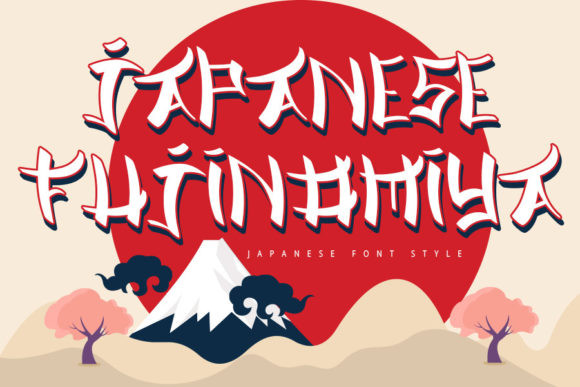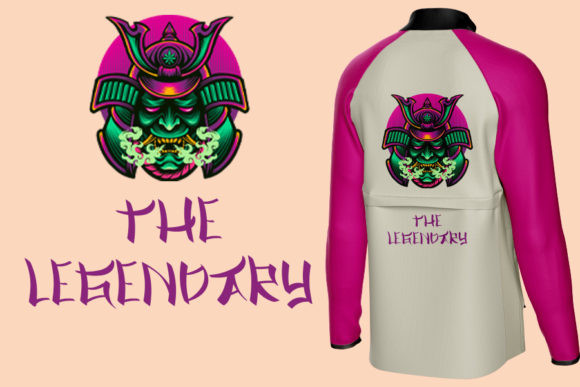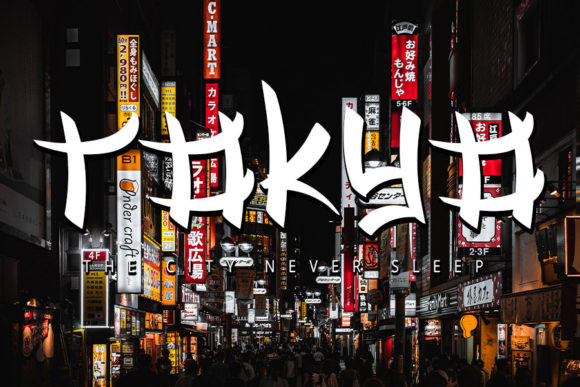
Japanese Fujinomiya Font
Japanese Fujinomiya FontJapanese Fujinomiya is an incredibly unique, Japanese inspired display font. It will look stunning on any food menu, poster, flyer or print.